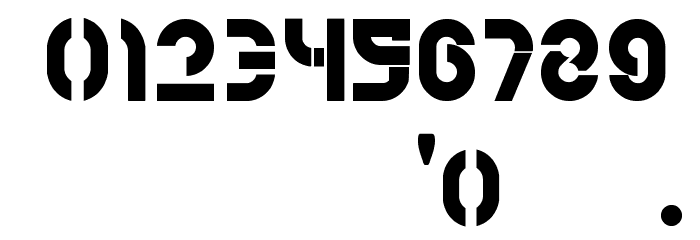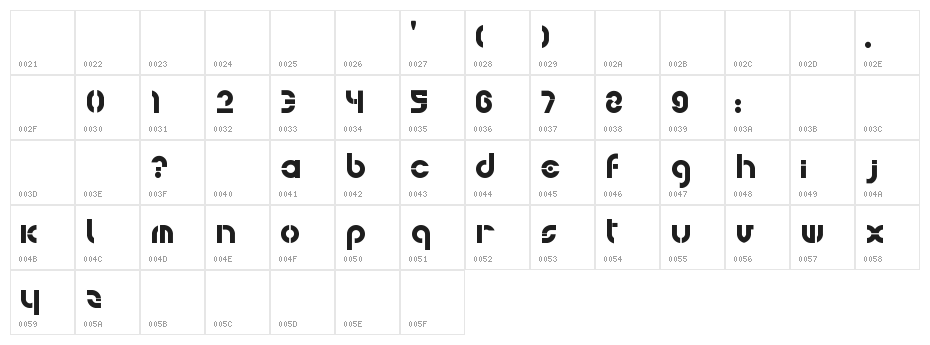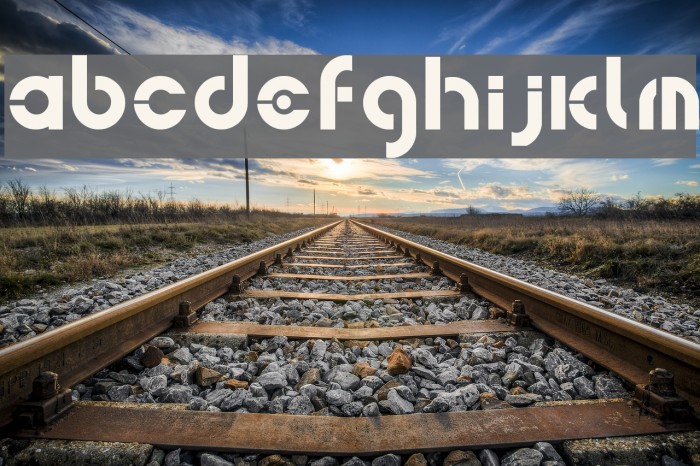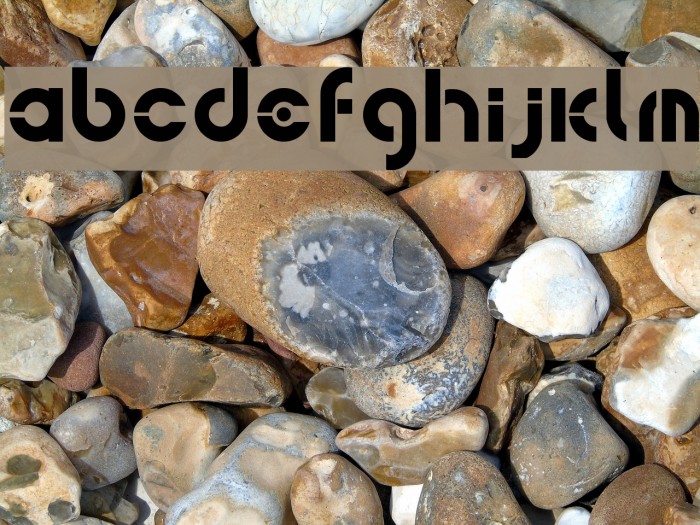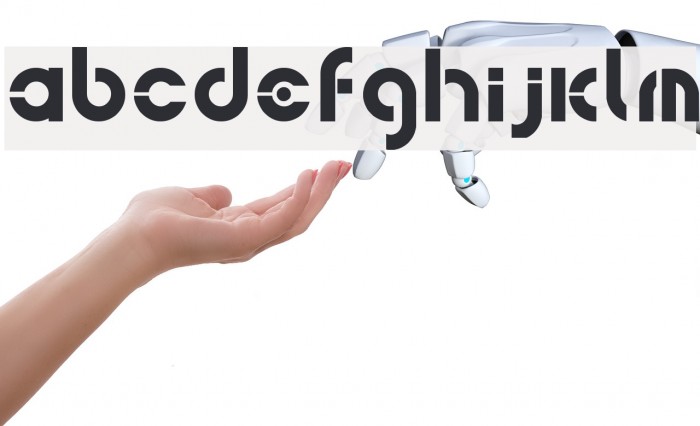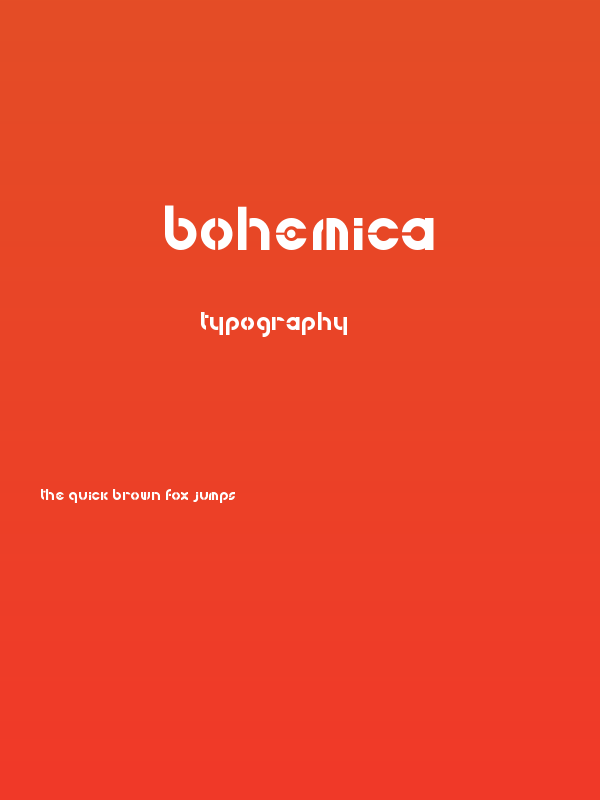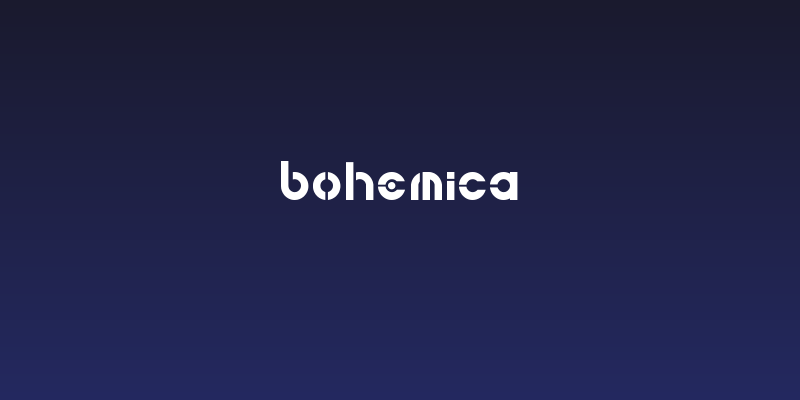
bohemica Font
bohemica Description
This font features a bold, geometric design with a modern and futuristic aesthetic. Each character is crafted with a unique, circular cut-out style that creates a striking visual effect. The letters are uniformly bold, with consistent stroke widths that contribute to a cohesive look. The font's distinctiveness is enhanced by its symmetrical and balanced structure, making it highly legible while maintaining a decorative flair. The numerals and special characters follow the same design principles, ensuring a harmonious appearance across all glyphs. This font is ideal for projects that require a contemporary and eye-catching typeface.
| Proposed Projects | Ideal for branding, posters, headlines, and digital media that require a modern and distinctive look. |